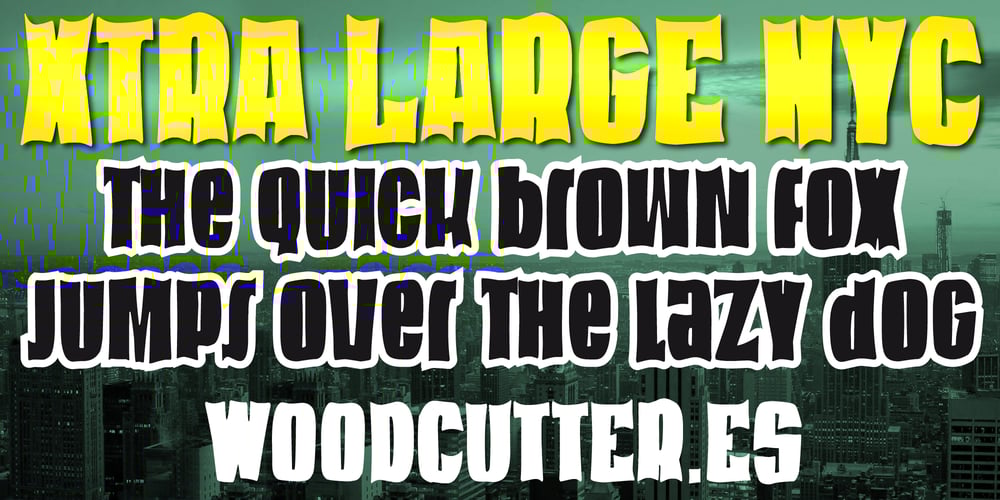
Xtra Large NYC Font Family was designed by Jordi Manero and published by Woodcutter. Xtra Large NYC contains 1 styles and family package options. “Xtra Large NYC” is an informal font with uppercase and lowercase letters of the same size. This typeface features an irregular and fun design, perfect for projects looking for a casual and modern touch. Inspired by the vibrant and eclectic energy of New York City, “Xtra Large NYC” brings dynamism and freshness to any design. Its unique and playful characters are ideal for posters, headlines, and any creative work that requires a distinctive and eye-catching style.–Uppercase